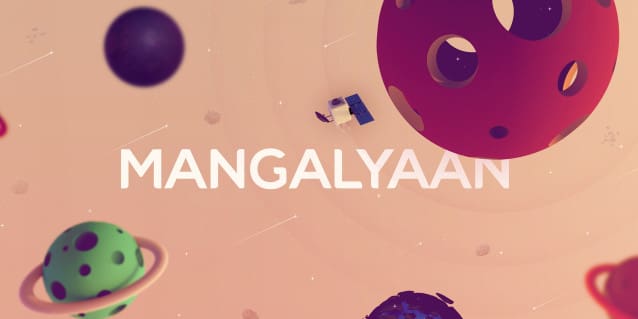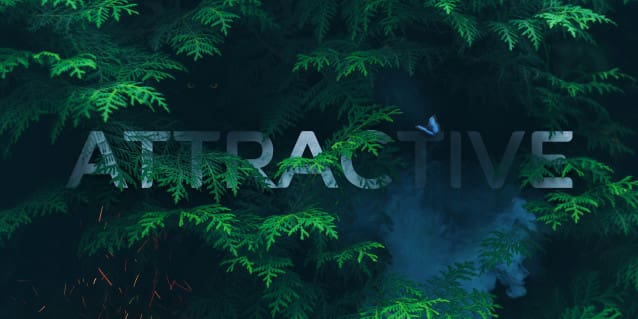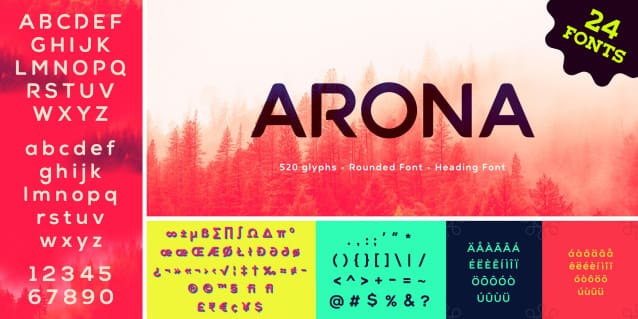
Arona Font Family
Arona Font Family, is a modern geometric sans typeface tailored to elevate all your design projects, from UI and app design to web design, branding, posters, magazines, infographics, packaging, and beyond. With its sharp yet rounded strokes, Arona effortlessly radiates both professionalism and friendliness. Boasting 12 font weight variations, Arona excels in delivering a multi-level content hierarchy in your design, ensuring your value is communicated clearly and easily.